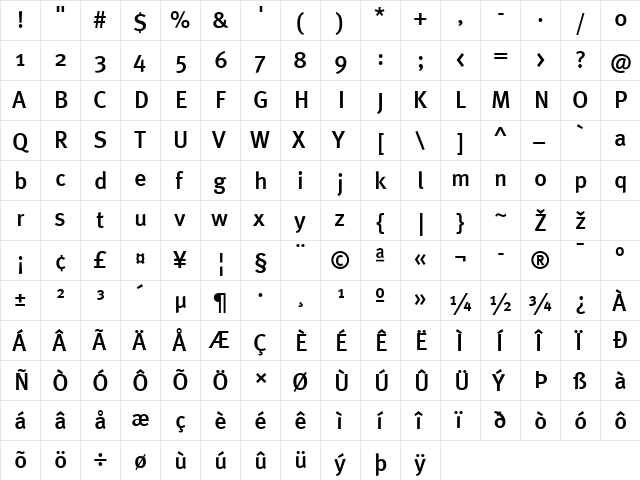
MetaPro Medium
| Foundry | FSI Fonts und Software GmbH |
| Designer | Erik Spiekermann |
Design Context for MetaPro Typeface
MetaPro offers clean, dependable letterforms without strong stylistic allegiance, making it a practical choice for designers who need flexibility.